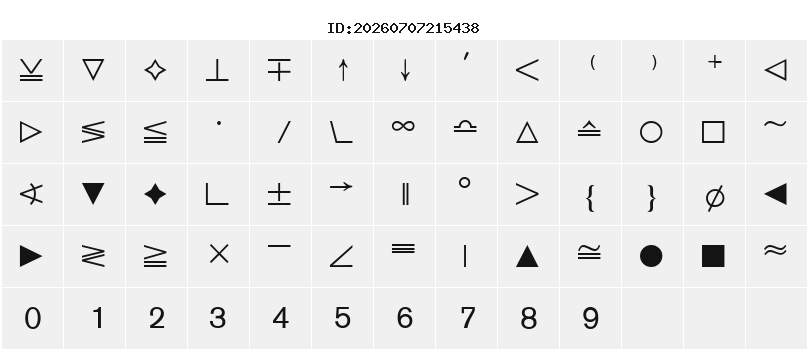
• Font Name: DataSymEDB
• Full Font Name: DataSymEDB Normal
DataSymEDB.ttf is a modern, elegant sans-serif font designed for ultimate readability and visual harmony. Perfect for branding, headlines, web design, and print materials.